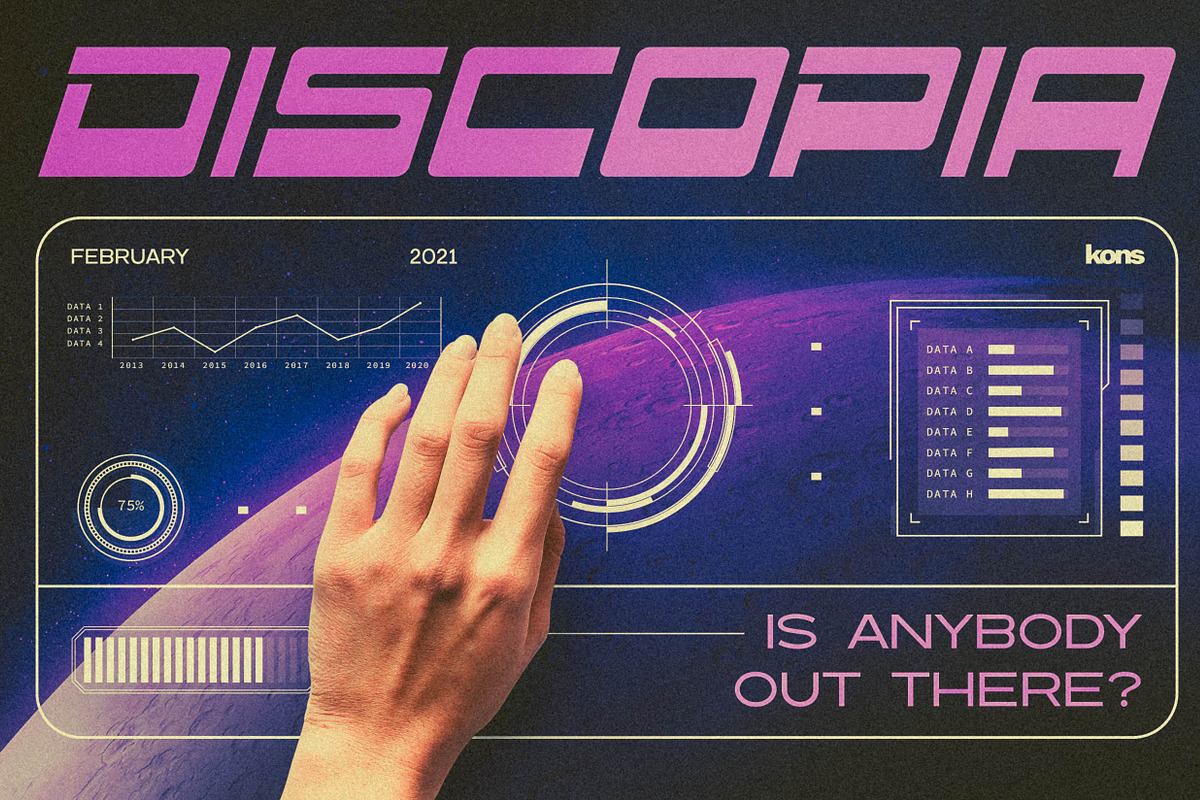
Discopia – Futuristic Tech Fonts Free Download is a sleek, cutting-edge typeface designed for digital age aesthetics, sci-fi themes, and high-tech branding. With its geometric structure, sharp angles, and clean lines, this font is perfect for technology startups, game interfaces, app design, cyberpunk posters, and science fiction titles.
Discopia brings a modern, forward-looking feel to any project—ideal for creating logos, UI/UX elements, or digital content that needs a futuristic edge. Its minimalist design ensures readability while maintaining a bold, innovative look that sets your typography apart.
Step into tomorrow’s design world with the sleek sophistication of Discopia.